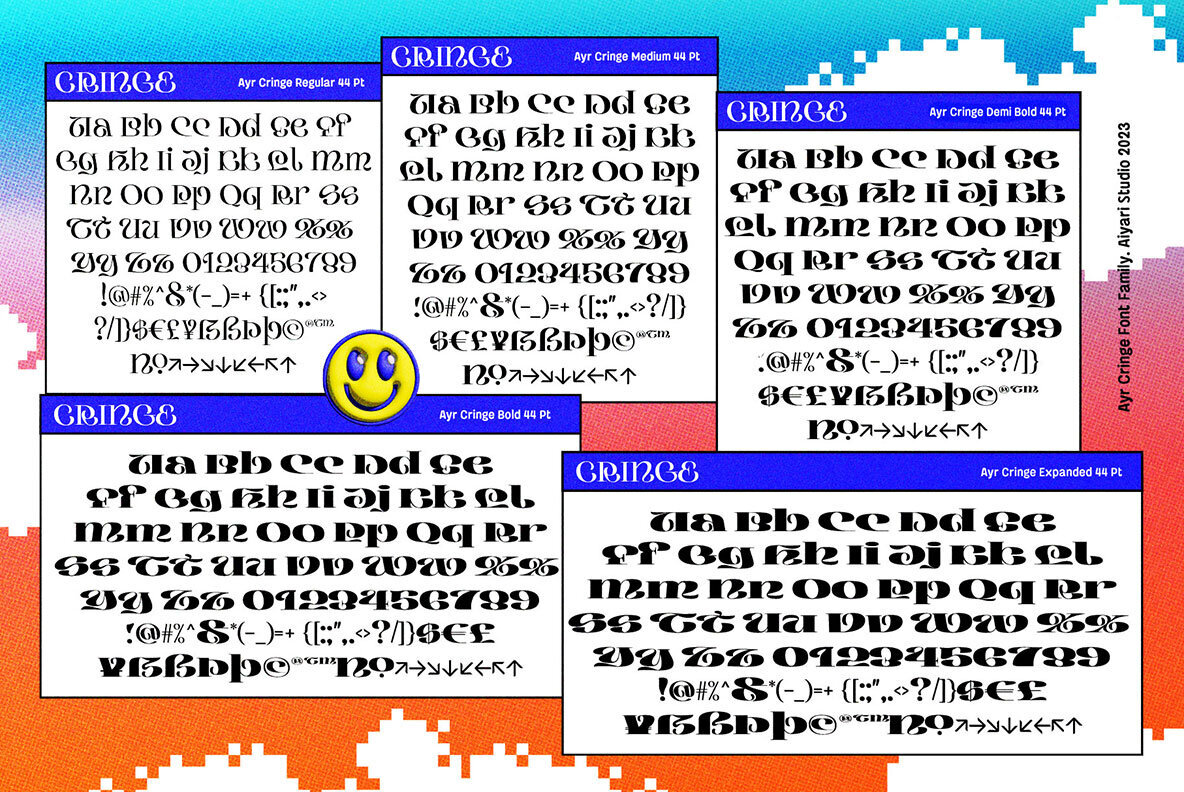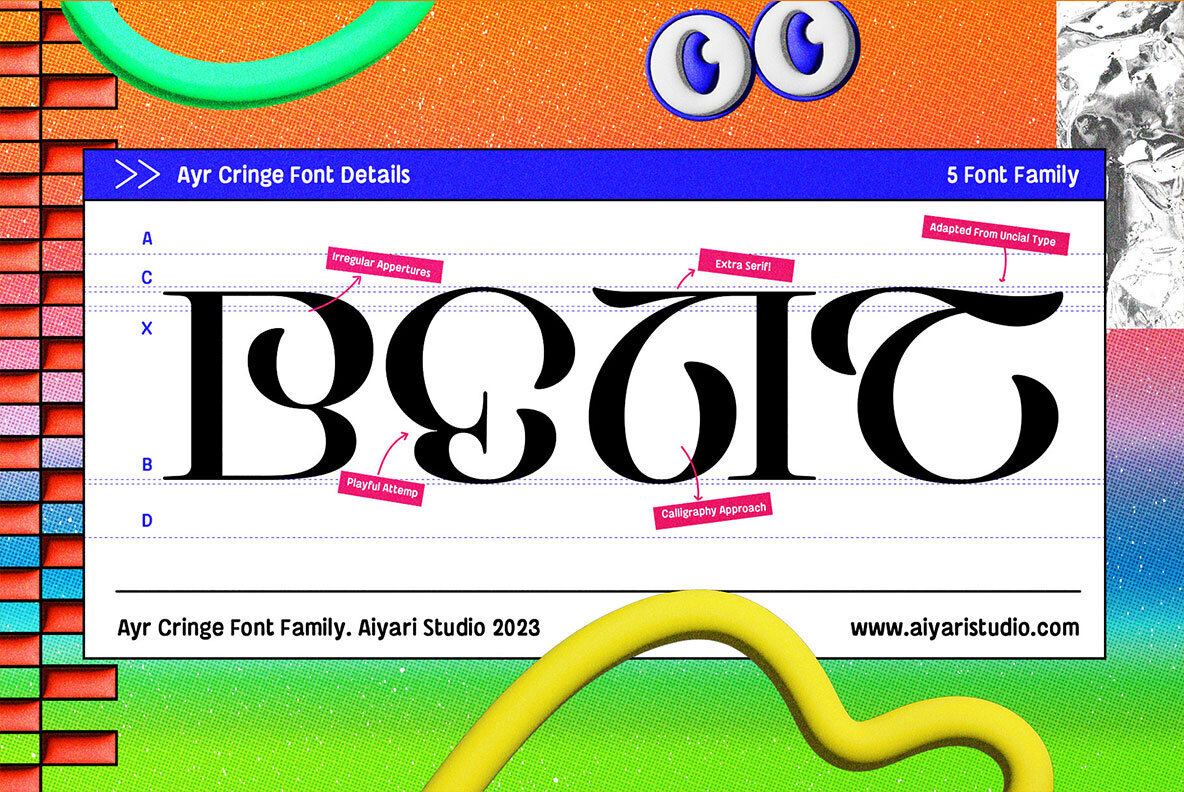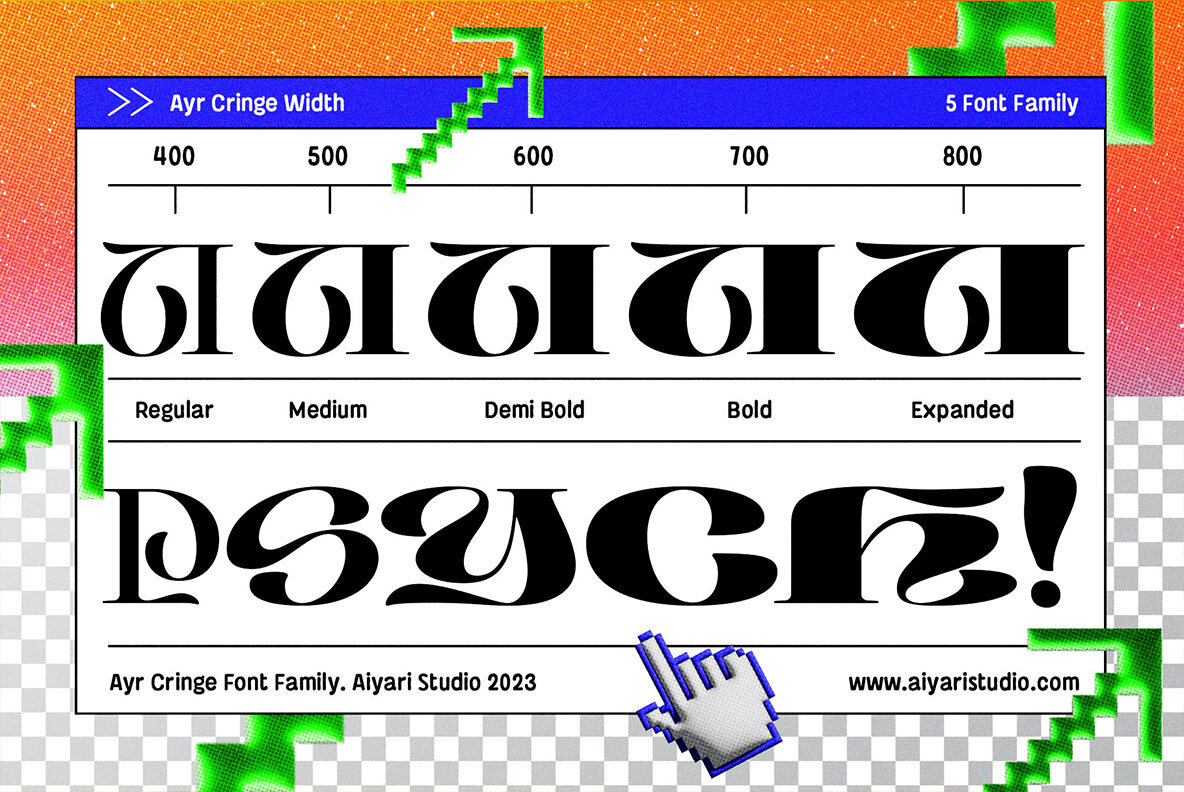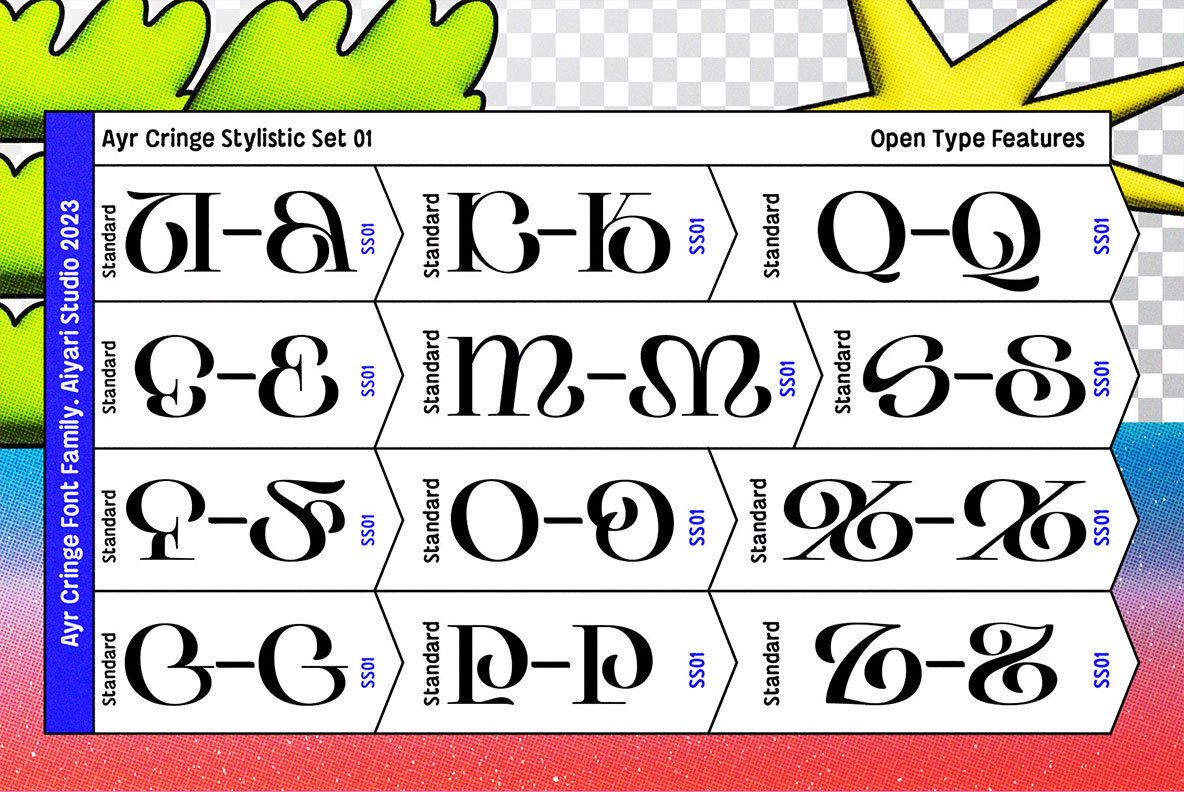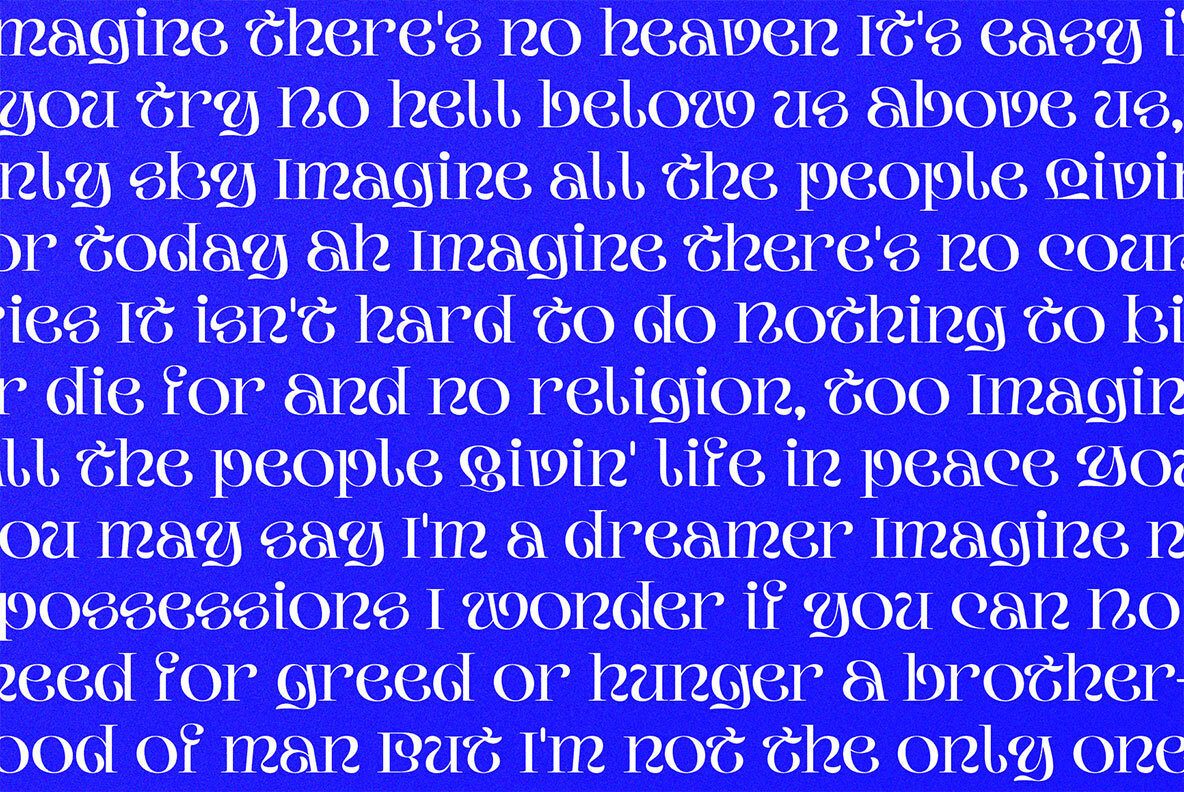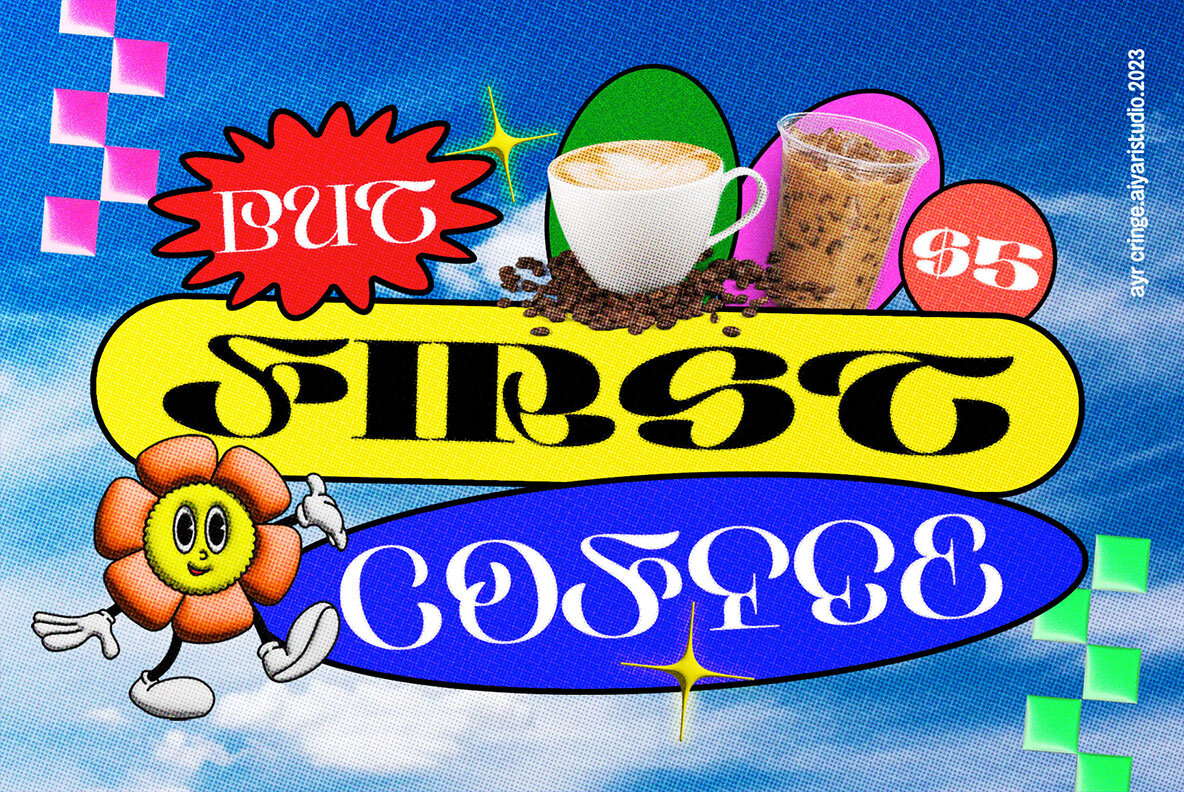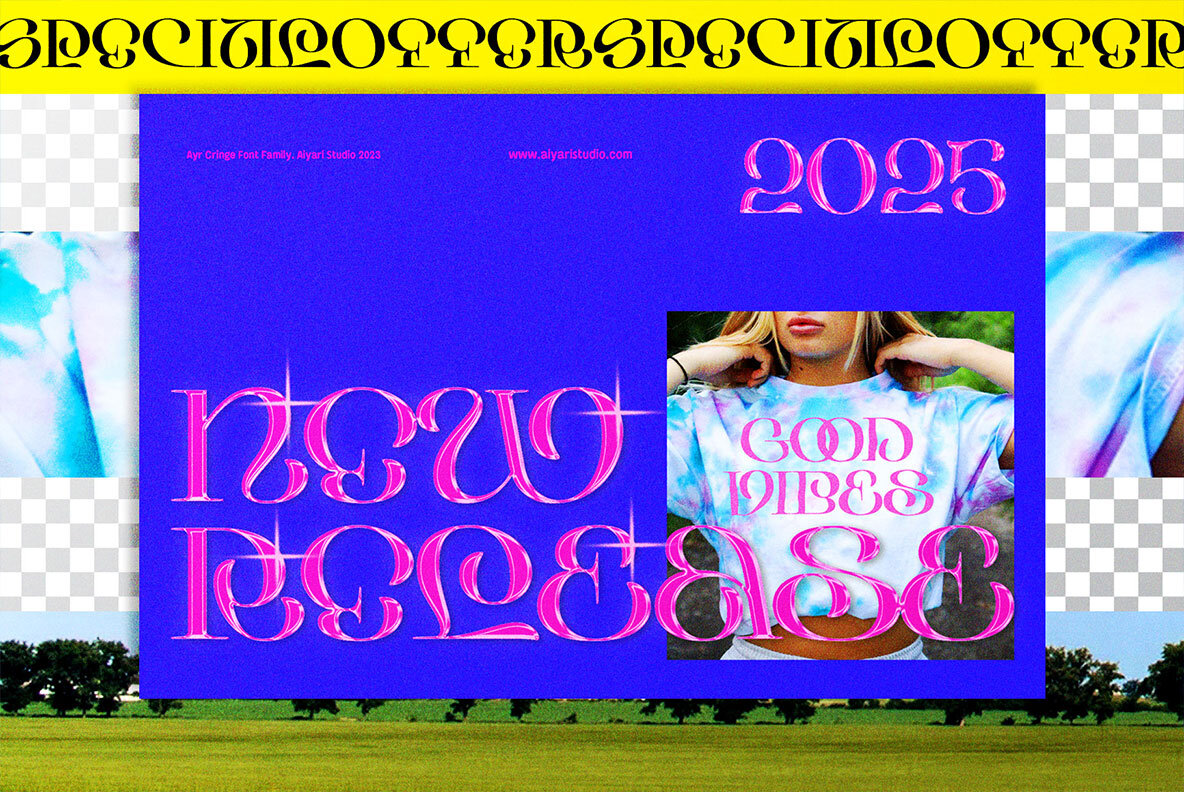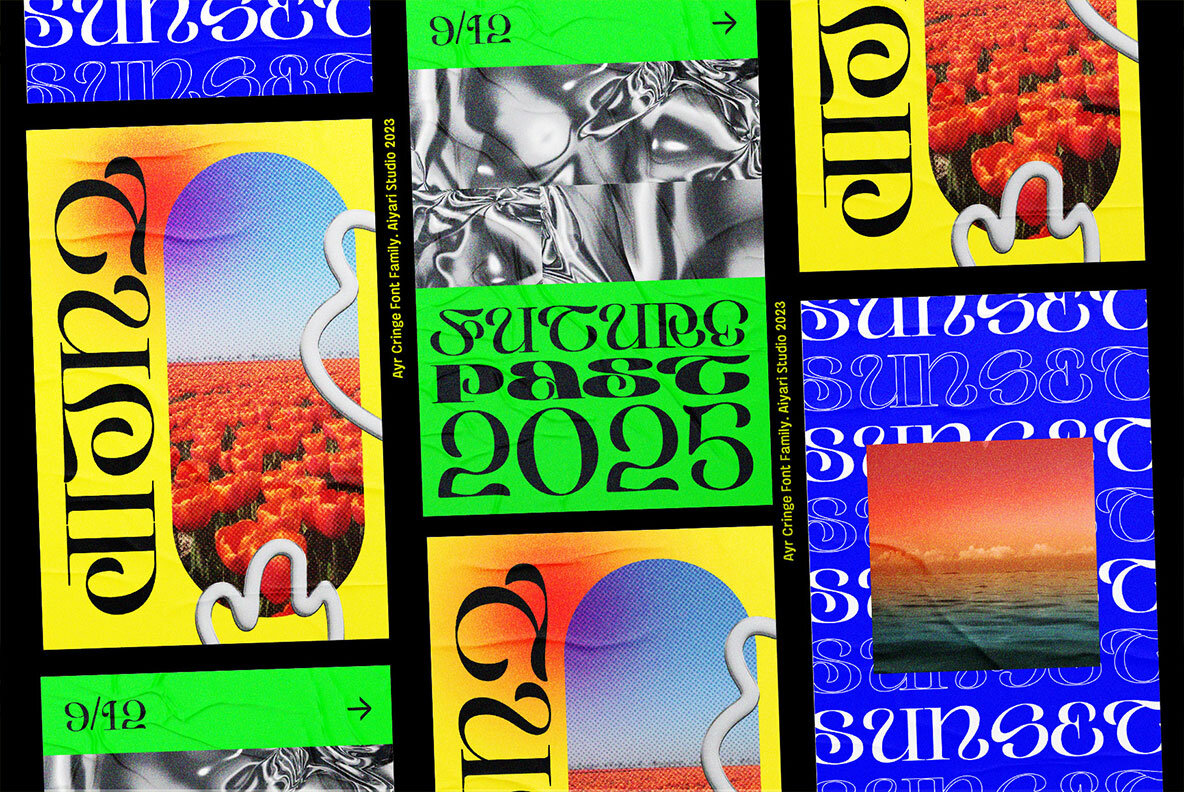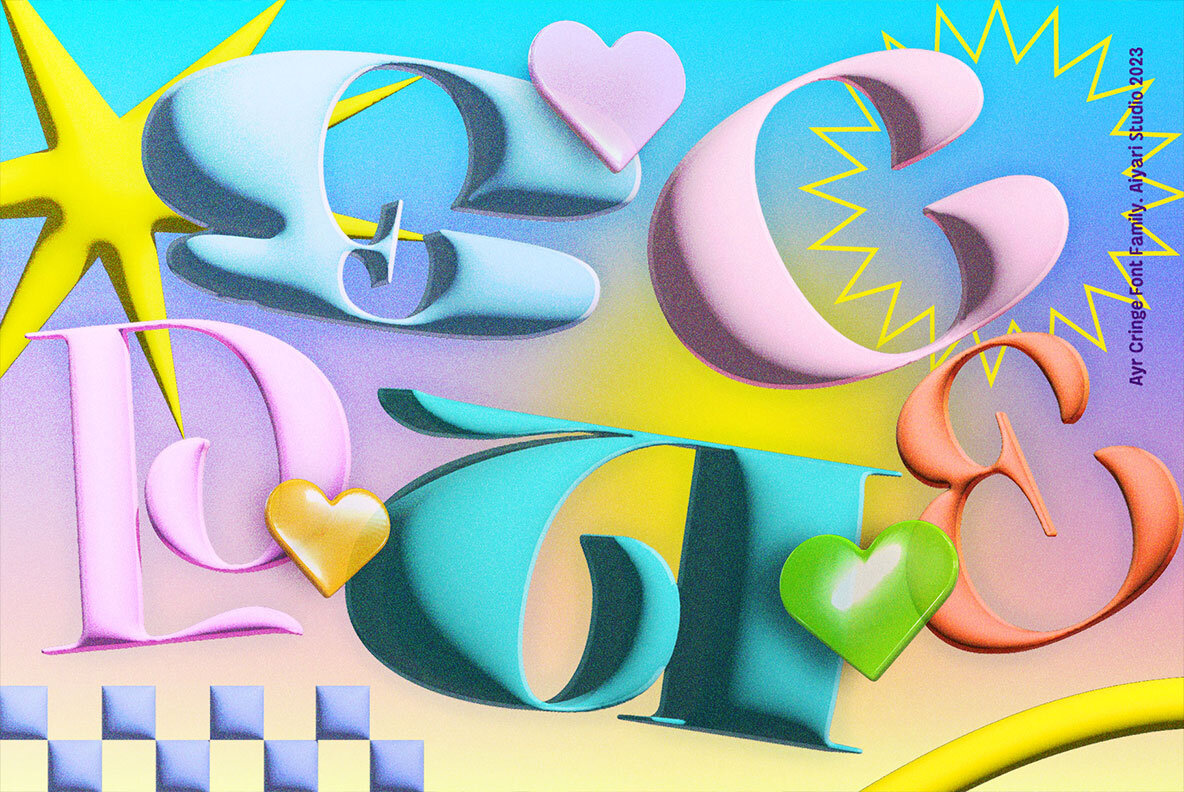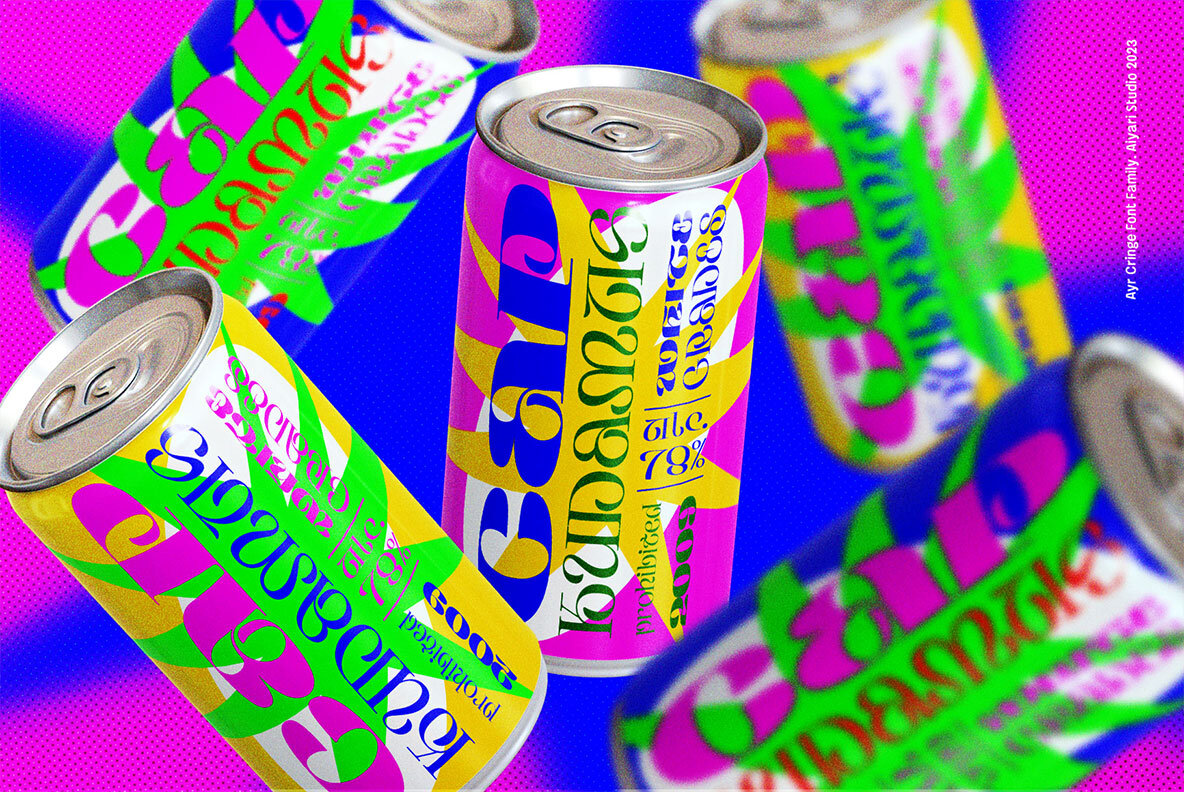
Cringe Font
Ayr Cringe Regular
Ayr Cringe Medium
Ayr Cringe Demi Bold
Ayr Cringe Bold
Ayr Cringe Expanded
"Cringe" is a captivating typeface that draws inspiration from the mesmerizing world of psychedelic pop culture, blending it with uncial lettering and a calligraphic approach. Each character exudes a sense of whimsy and free-spiritedness, making it a unique choice for various design projects. The Ayr Cringe Font Family is ideal for a wide range of applications, from headings and logotypes to apparel design and more. Whether it's for invitations, posters, flyers, greeting cards, packaging, book covers, printed quotes, album covers, or movies, this typeface adds a unique and artistic flair.Cringe: Psychedelic-Inspired Typeface by Aiyari